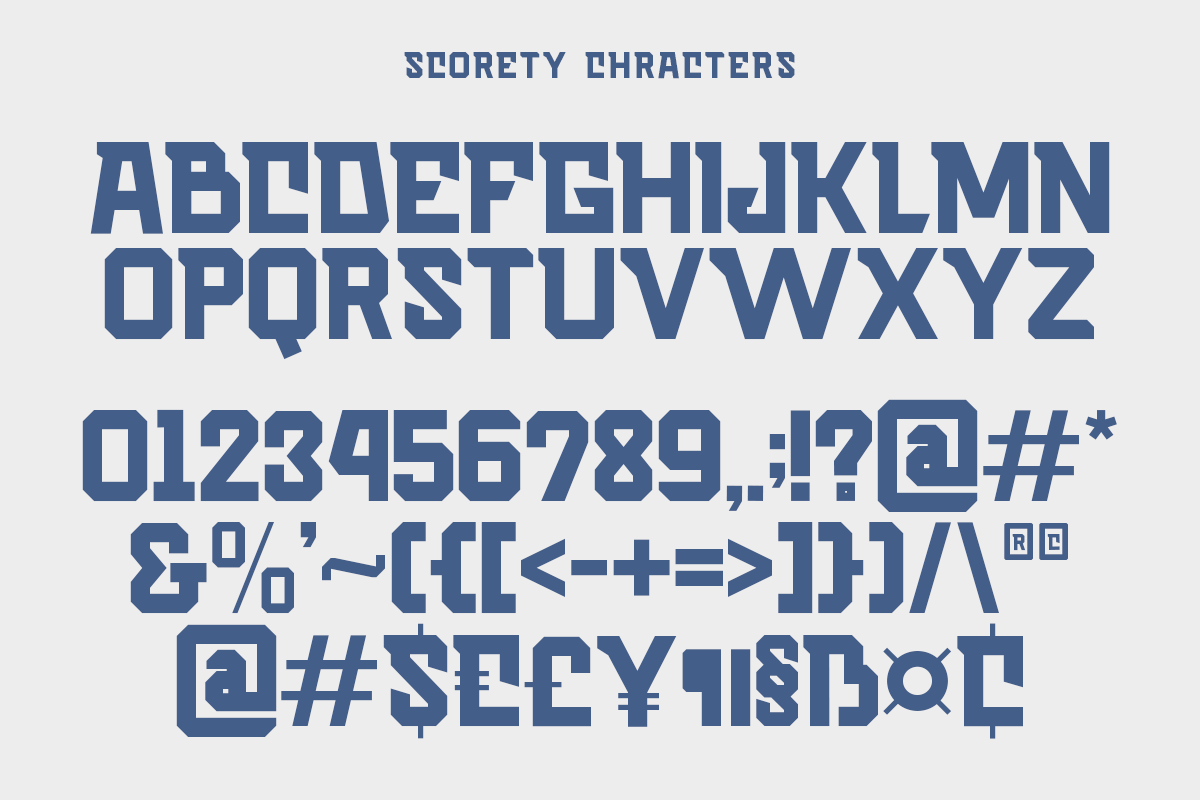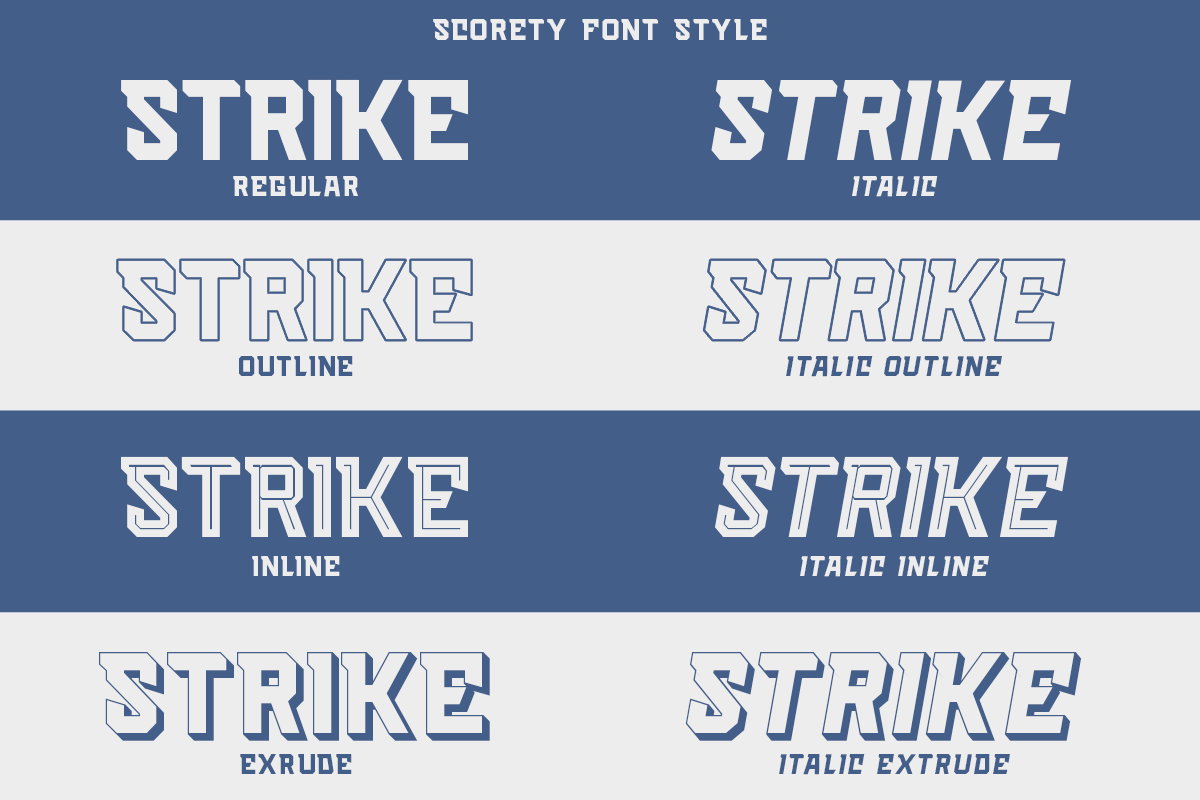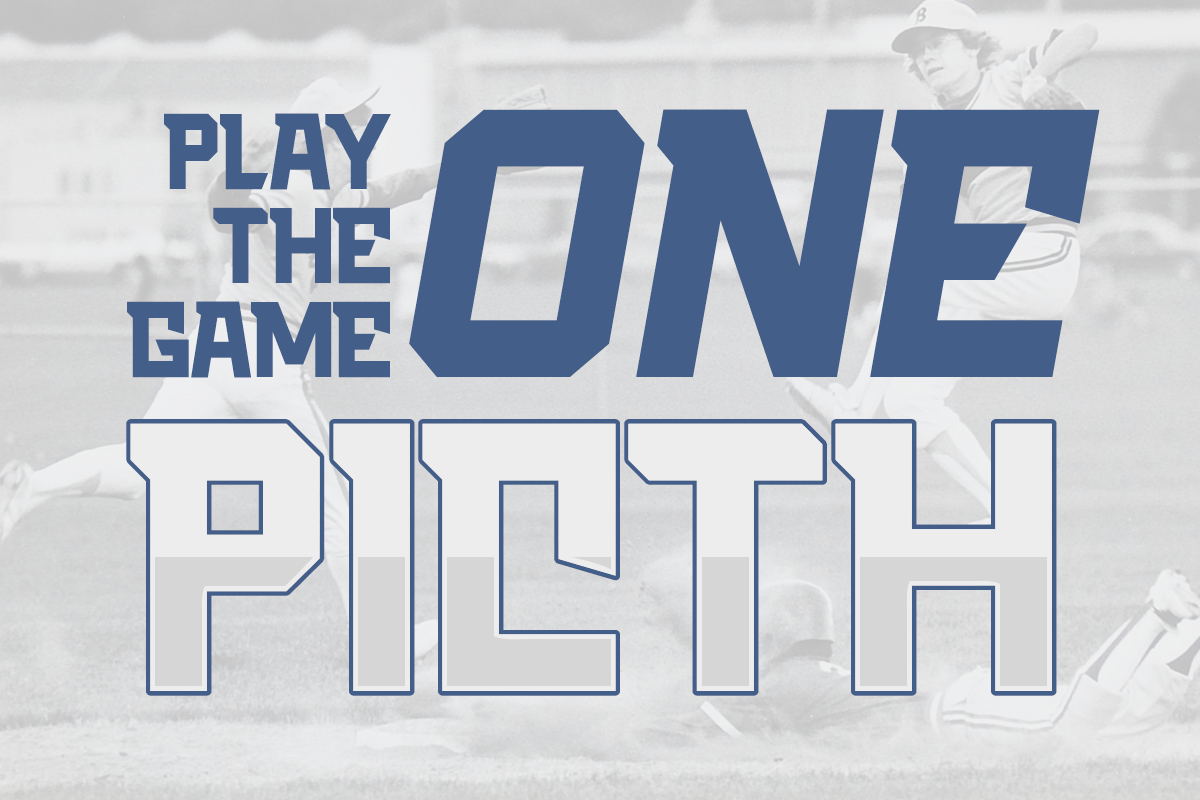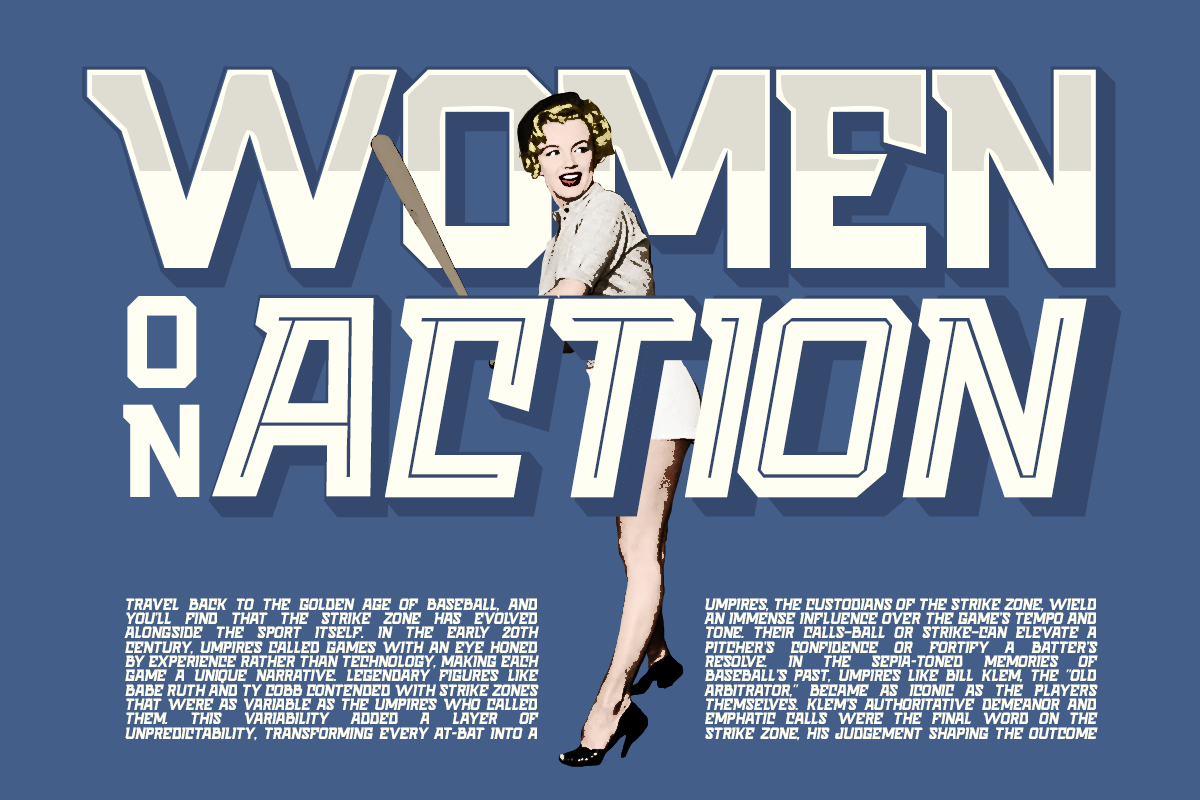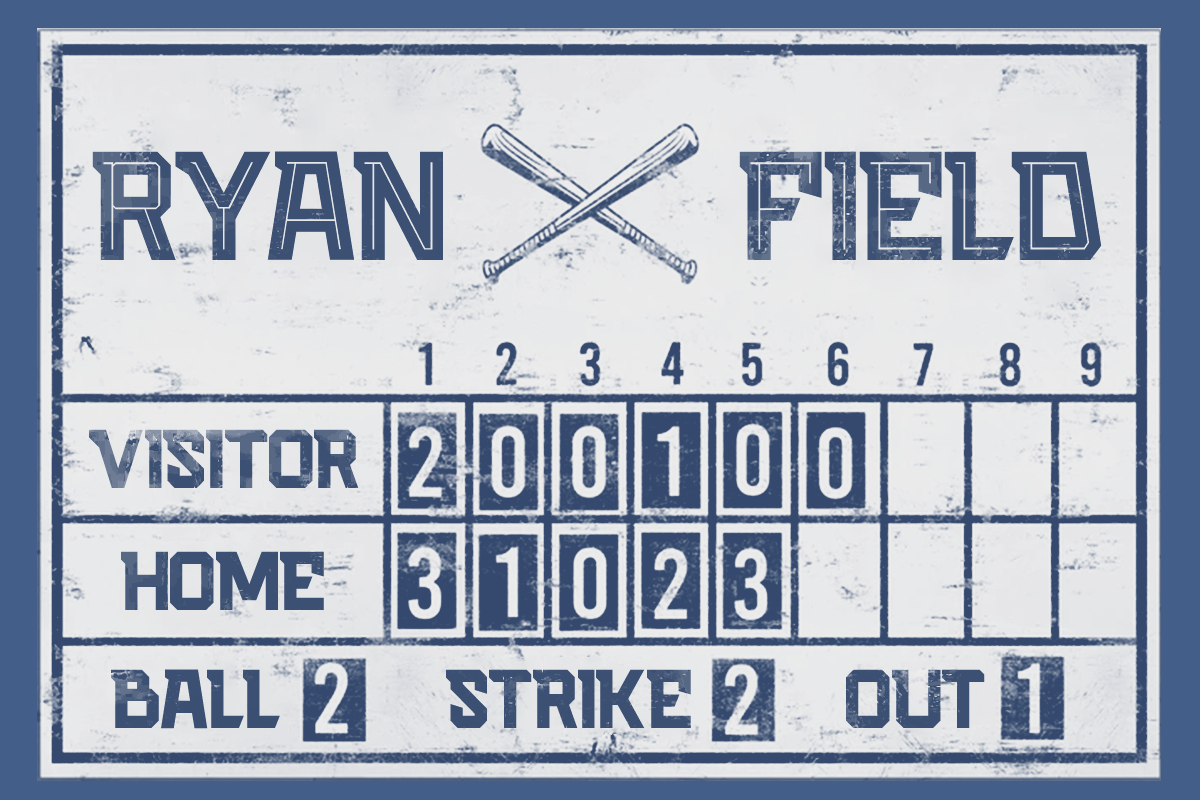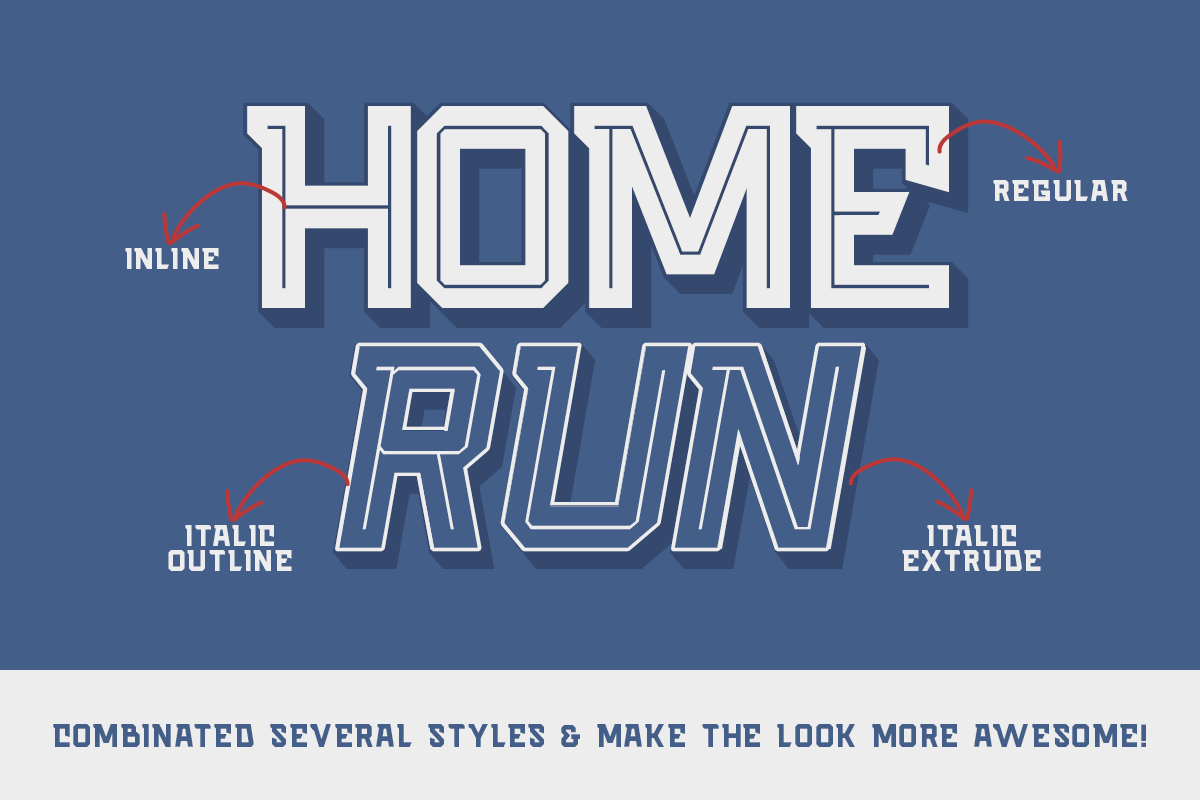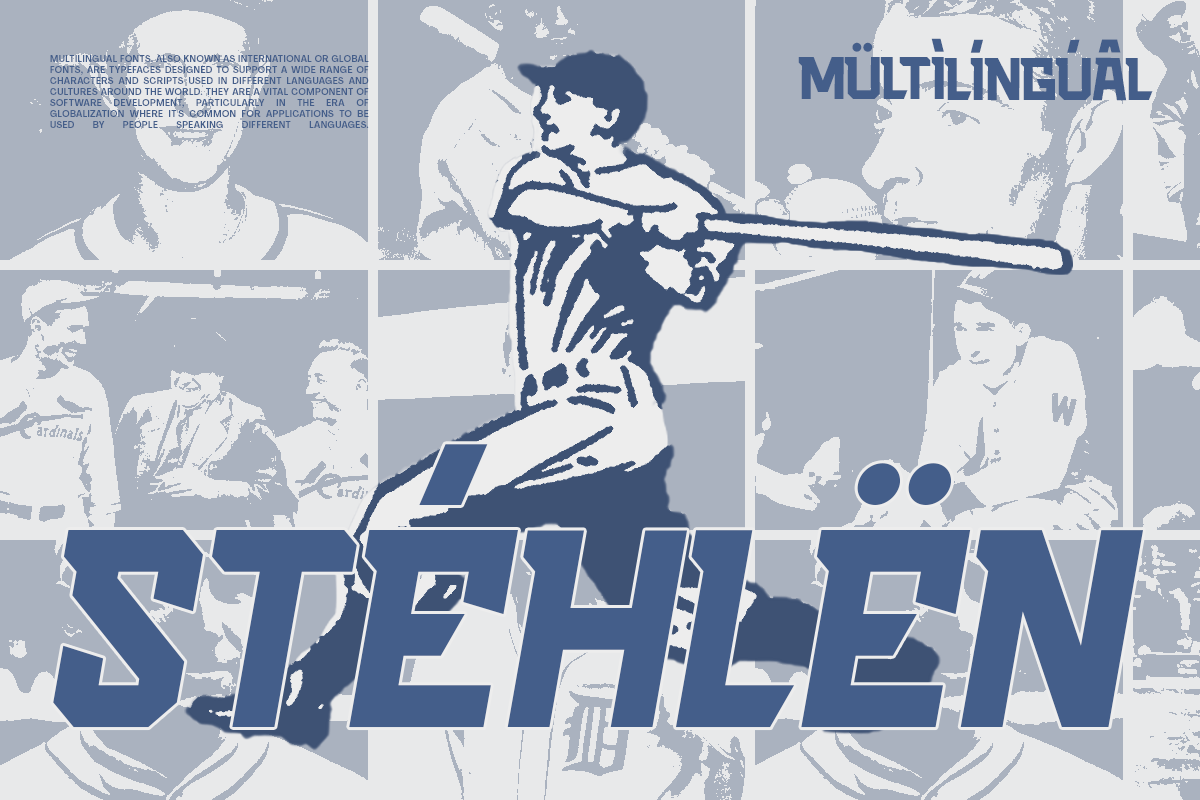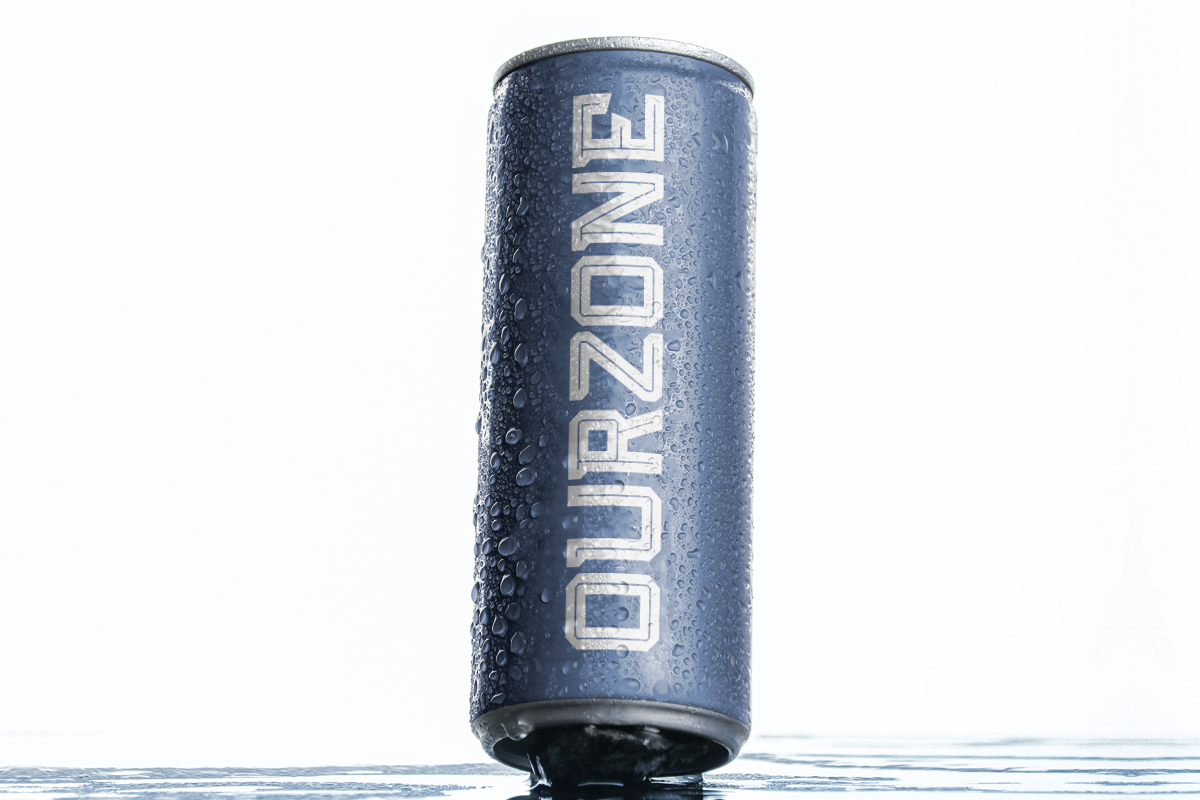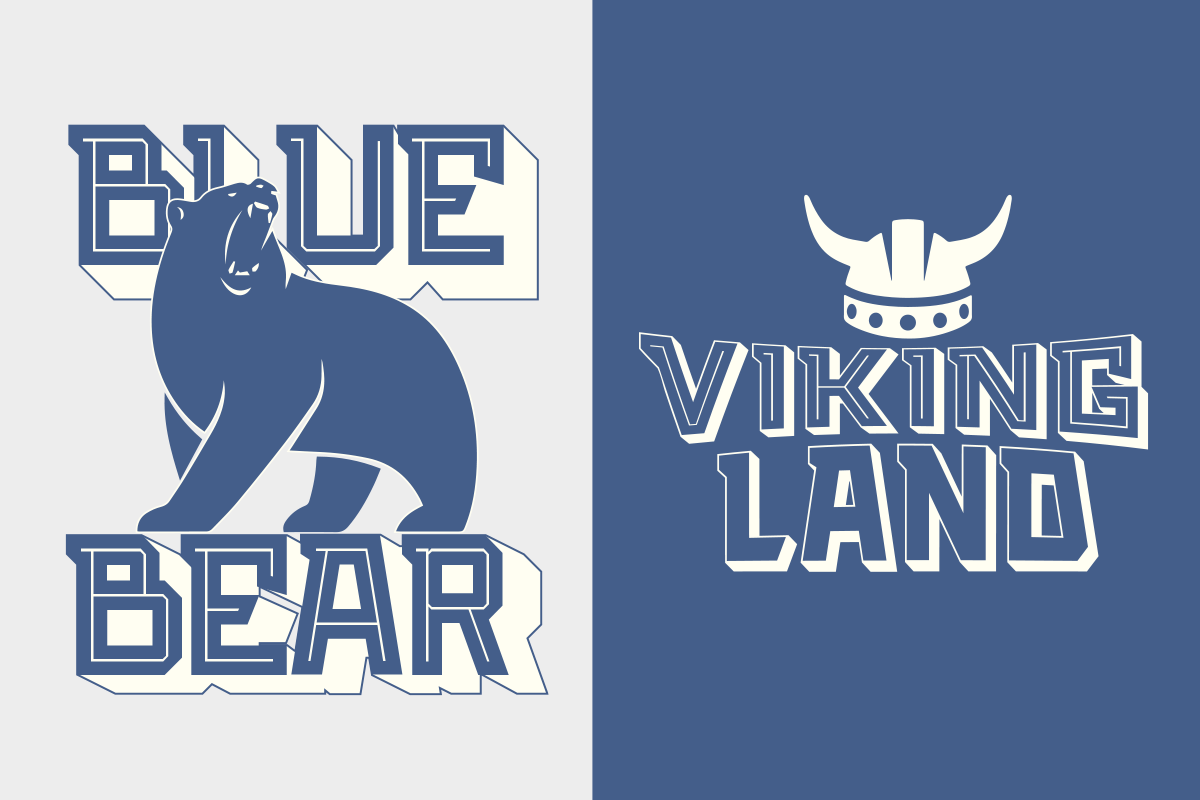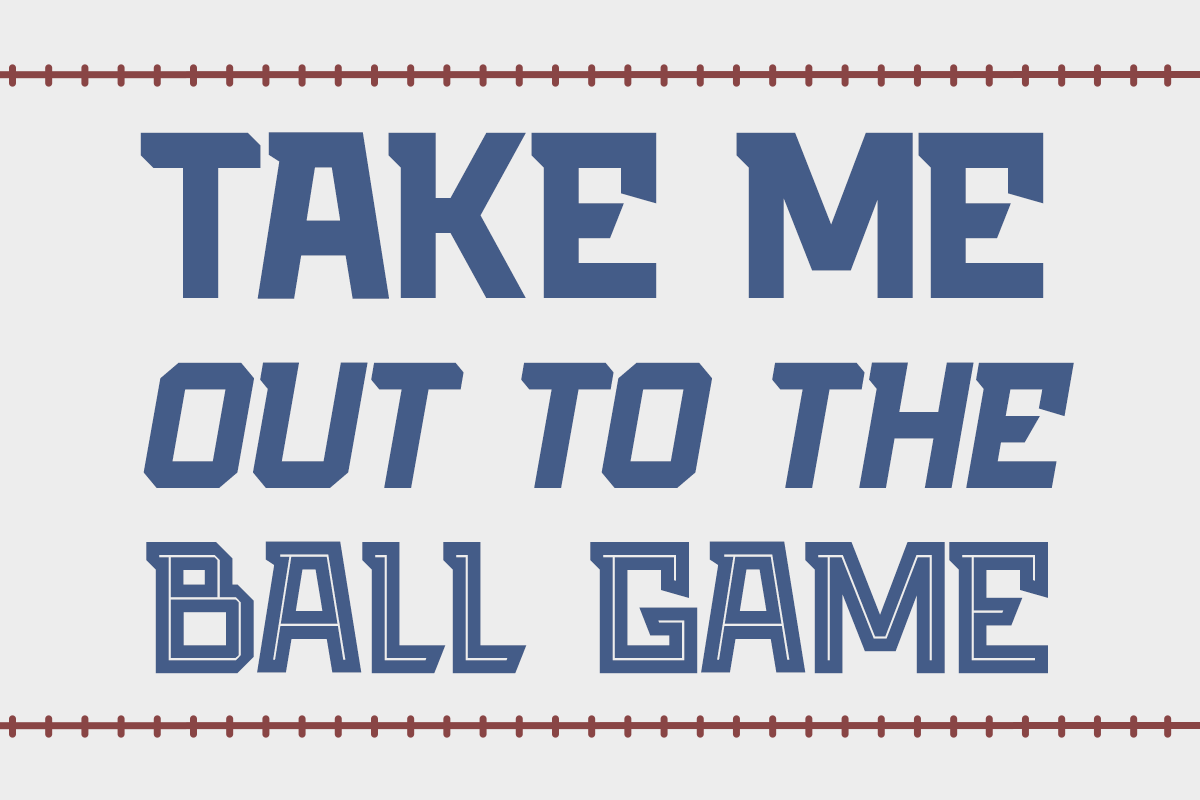
Scorety - Baseball Sport Font
Introducing Scorety, a Baseball font display that commands attention with its bold, powerful aesthetic. Perfect for sports-themed designs, especially baseball, Scorety adds an energetic touch to your projects.
Scorety features eight versatile styles: Regular, Italic, Outline, Inline, Extrude, Italic Outline, Italic Inline, and Italic Extrude, each reminiscent of classic baseball typography.
Ideal for sports design, team jerseys, leagues, baseball posters, movie titles, logos, and more, Scorety ensures your projects stand out with unmatched intensity and style, capturing the spirit of the baseball field.
- Eight distinctive styles: Regular, Italic, Outline, Inline, Extrude, Italic Outline, Italic Inline, Italic Extrude
- Strong, confident letterforms
Transform your sports-themed projects with Scorety, the ultimate font for bold and vibrant typography inspired by the great game of baseball.